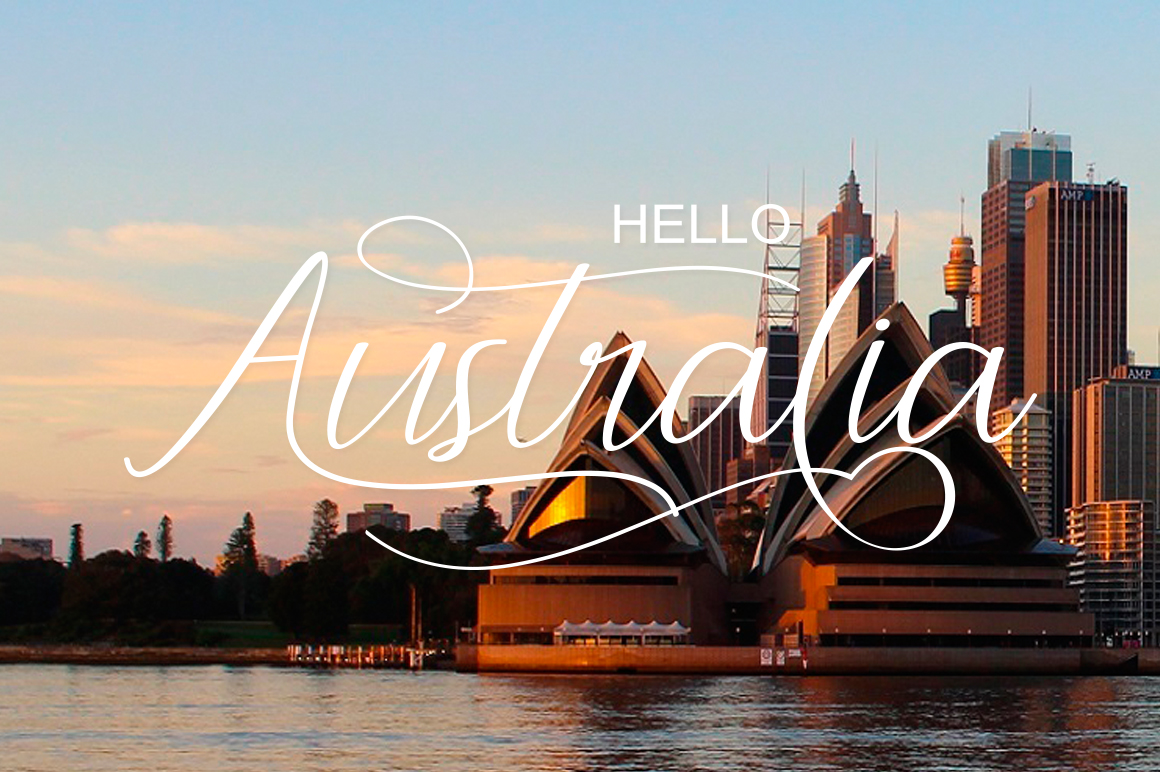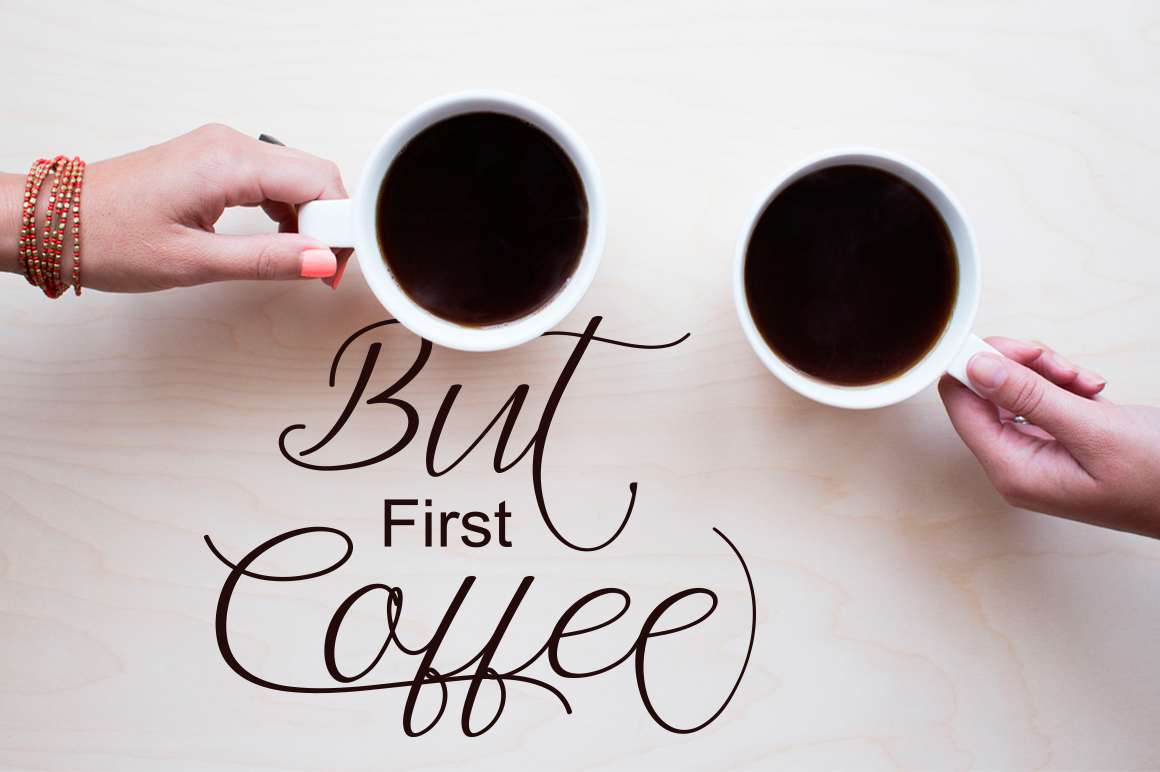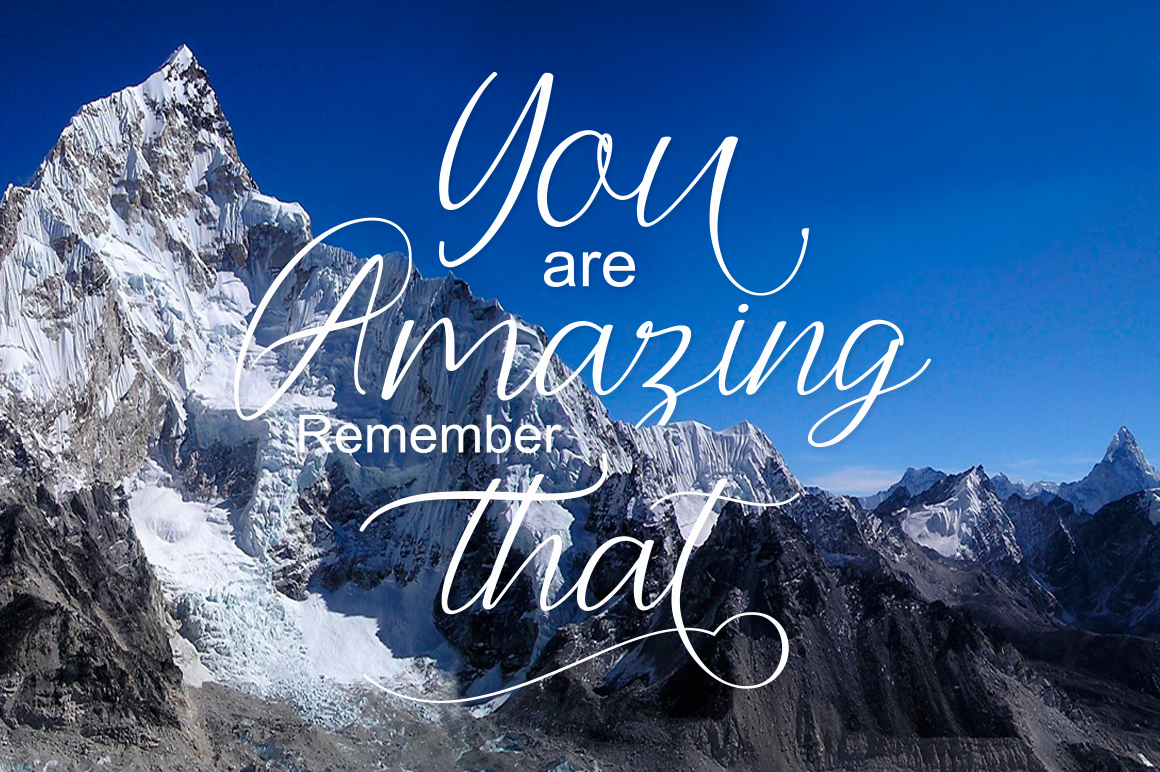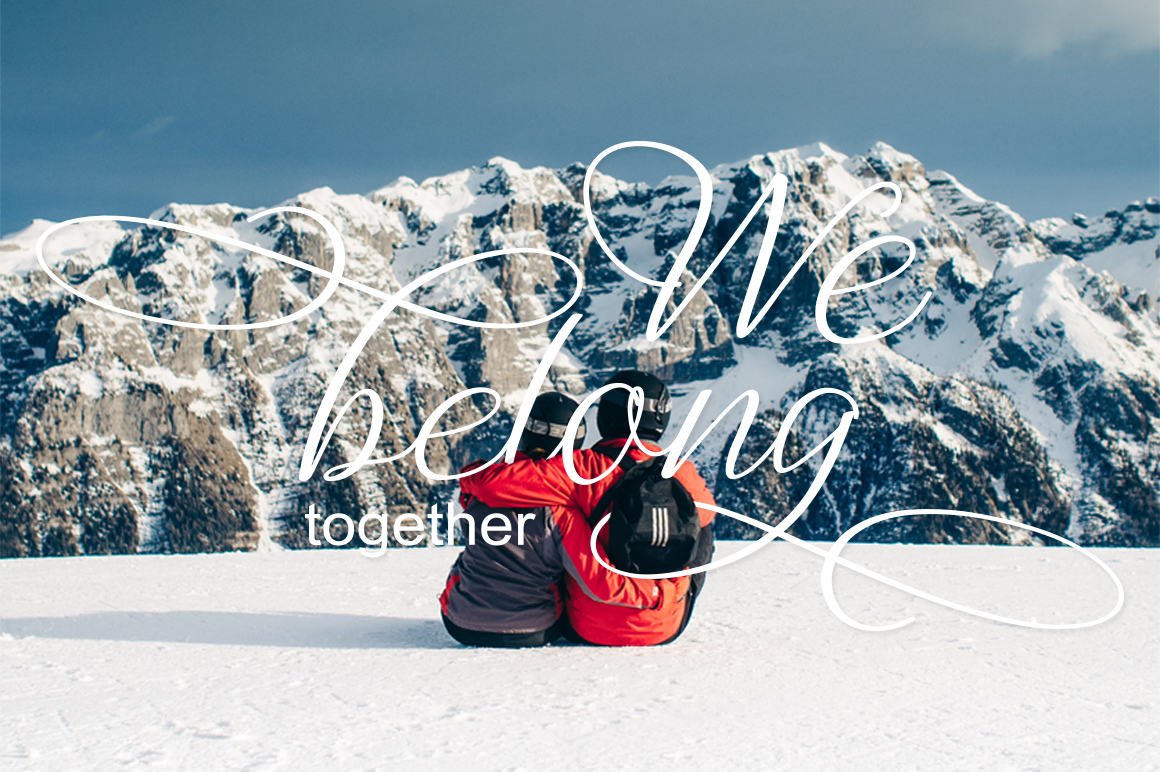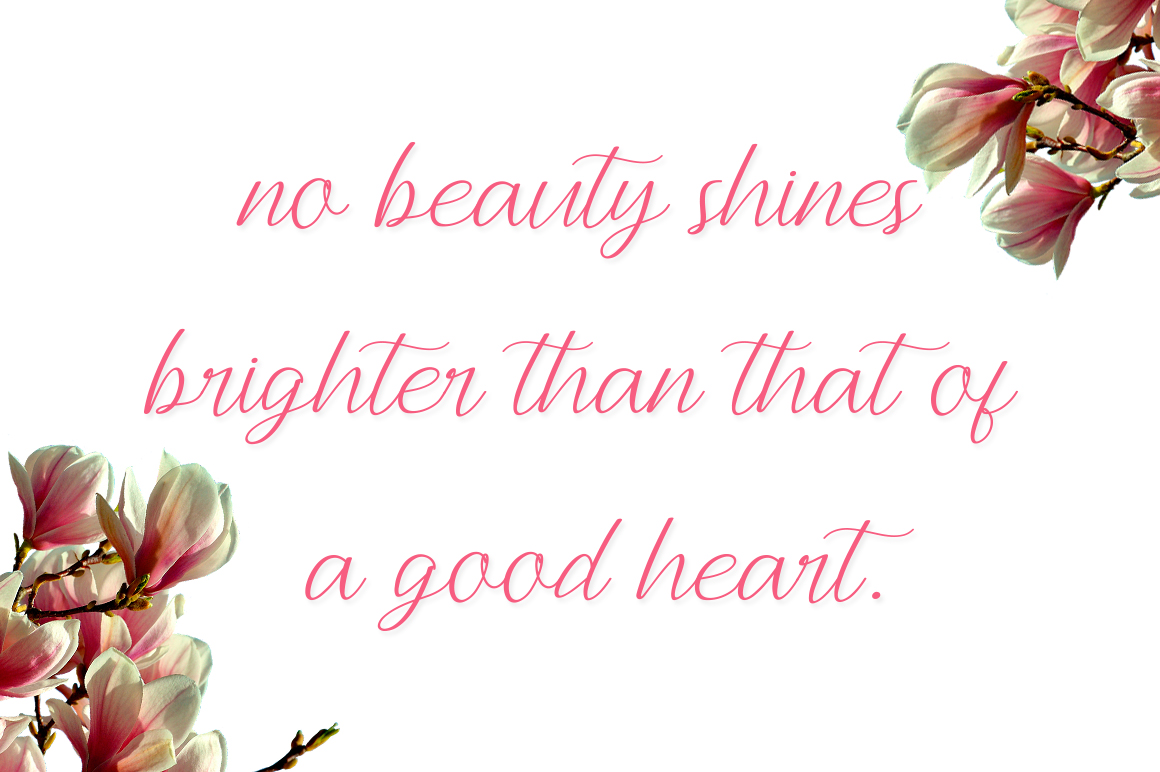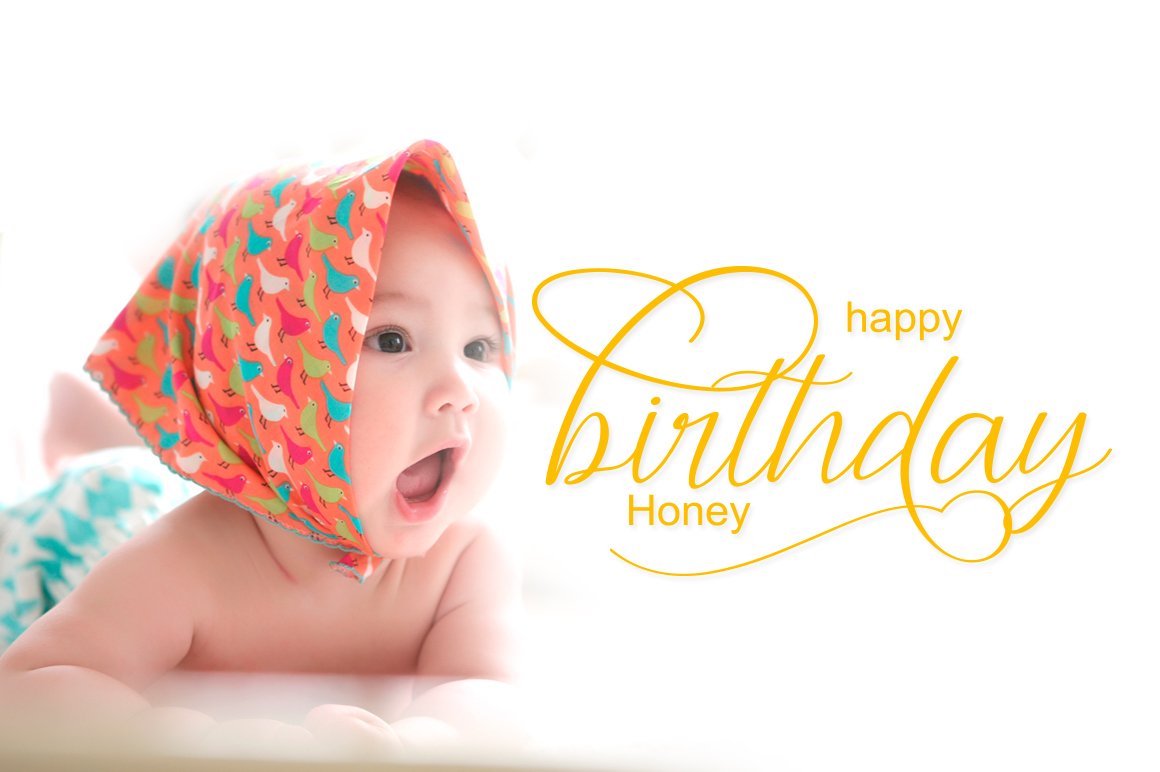
Introducing Andella Script Font: Elevate Your Designs with Elegance and Sophistication
Are you a designer or crafter looking for a font that can add a touch of elegance and sophistication to your projects? Look no further than Andella Script Font. This stunning modern handmade font boasts a beautiful calligraphic style, complete with gorgeous swashes that will take your designs to the next level.
What Makes Andella Script Font So Special?
Andella Script Font is a true gem in the world of typography. Unlike other fonts that are created using algorithms or computer programs, Andella Script is completely drawn by hand and digitally perfected. This attention to detail and commitment to craftsmanship is evident in every curve and swoop of the font.
With Andella Script Font, you’ll have access to a wide range of stunning swashes that can be used to add a personal touch to your designs. Whether you’re creating wedding invitations, branding materials, or social media graphics, this font is sure to impress.
Key Features of Andella Script Font
- Handmade with love: Andella Script Font is carefully crafted by hand, ensuring a unique and personal touch.
- Calligraphic style: This font boasts a beautiful calligraphic style that’s perfect for adding a touch of elegance to your designs.
- Stunning swashes: With a wide range of swashes to choose from, you can add a personal touch to your designs and make them truly special.
- Digitally perfected: While the font is drawn by hand, it’s also digitally perfected to ensure crisp and clean lines.
- Modern and versatile: Andella Script Font is perfect for a wide range of design projects, from modern branding to traditional crafts.
How to Use Andella Script Font in Your Designs
- Pair it with a sans-serif font: For a classic look, pair Andella Script Font with a clean sans-serif font.
- Use it for headings and titles: Andella Script Font is perfect for headings and titles, where you want to make a bold statement.
- Add swashes for a personal touch: Use the stunning swashes to add a personal touch to your designs and make them truly special.
Why Designers and Crafters Love Andella Script Font
Andella Script Font has quickly become a favorite among designers and crafters, and it’s easy to see why. Here are just a few reasons why:
- Unique and eye-catching: This font is truly one-of-a-kind, making it perfect for designers and crafters who want to stand out from the crowd.
- Elegant and sophisticated: Andella Script Font adds a touch of elegance and sophistication to any design, making it perfect for high-end branding and luxury crafts.
- Versatile and flexible: This font can be used for a wide range of design projects, from modern branding to traditional crafts.
| Font Name | Andella Script Font |
| Author | masinong |
If you’re looking for a font that can add a touch of elegance and sophistication to your designs, look no further than Andella Script Font. With its stunning calligraphic style, gorgeous swashes, and handmade charm, this font is sure to impress. Whether you’re a designer or crafter, Andella Script Font is a must-have addition to your toolkit.